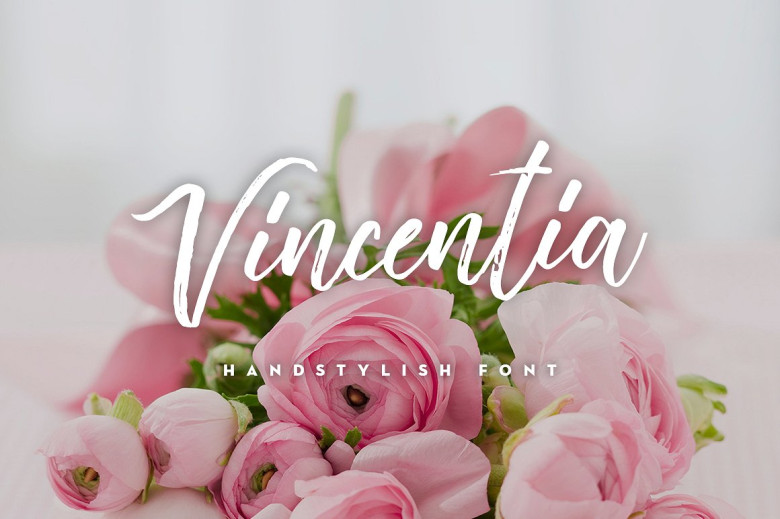
Vincentia Handstylish Font
Introducing Vincentia Handstylish Font! Vincentia was designed and shares by Alif Devan R. Vincentia Handstylish font best match for logos, header, titles, prints & other creative process possibilities. Create a extraordinary handstylish results by using Vincentia Handstylish Font!